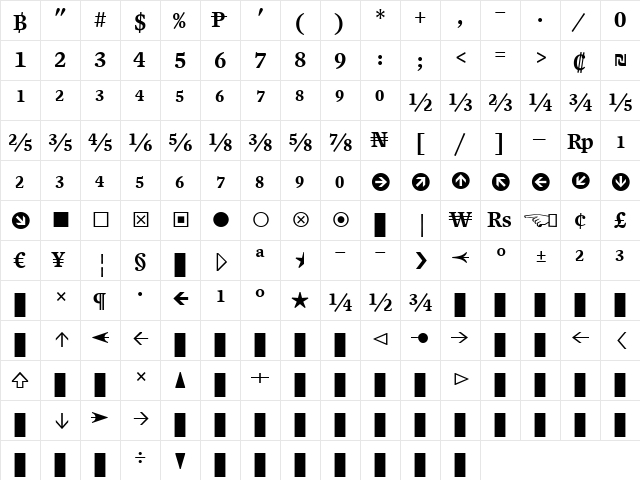
Mercury Numeric G4 Semibold
Semibold · C) - Hoefler & Frere-Jones, Inc  ·
Foundry C) - Hoefler & Frere-Jones, Inc
Design Context for Mercury Numeric G4 Typeface
Mercury Numeric G4 takes a measured approach to typography — its balanced proportions and neutral character make it a reliable workhorse for both digital and print work. The heavy weight commands attention and anchors typographic hierarchies.